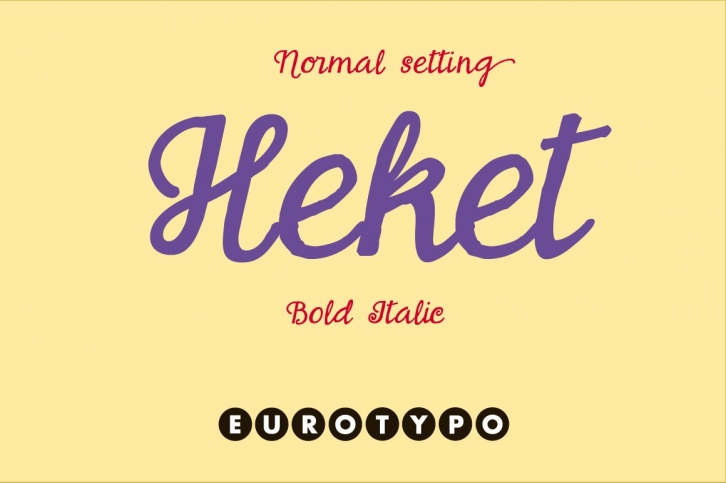
Heket was a goddess of childbirth and fertility in Ancient Egypt. She was depicted as a frog, or a woman with the head of a frog. Frogs symbolized fruitfulness and new life.
Heket font is an expressive handwritten font, it is available in four versions: Regular and slanted. They have many advantages of the OpenType futures to choose from: stylistic alternates, swashes, contextual alternates, and a full set of standard and discretionary ligatures. Heket supports all diacritics for CE languages; they come also with a huge variety of ornaments, underlines, beginnings and word endings that will allow you to work in a creative way.
They've been specially thought to use in packaging design, children books, advertising, logotypes, greeting cards, web sites and much more.